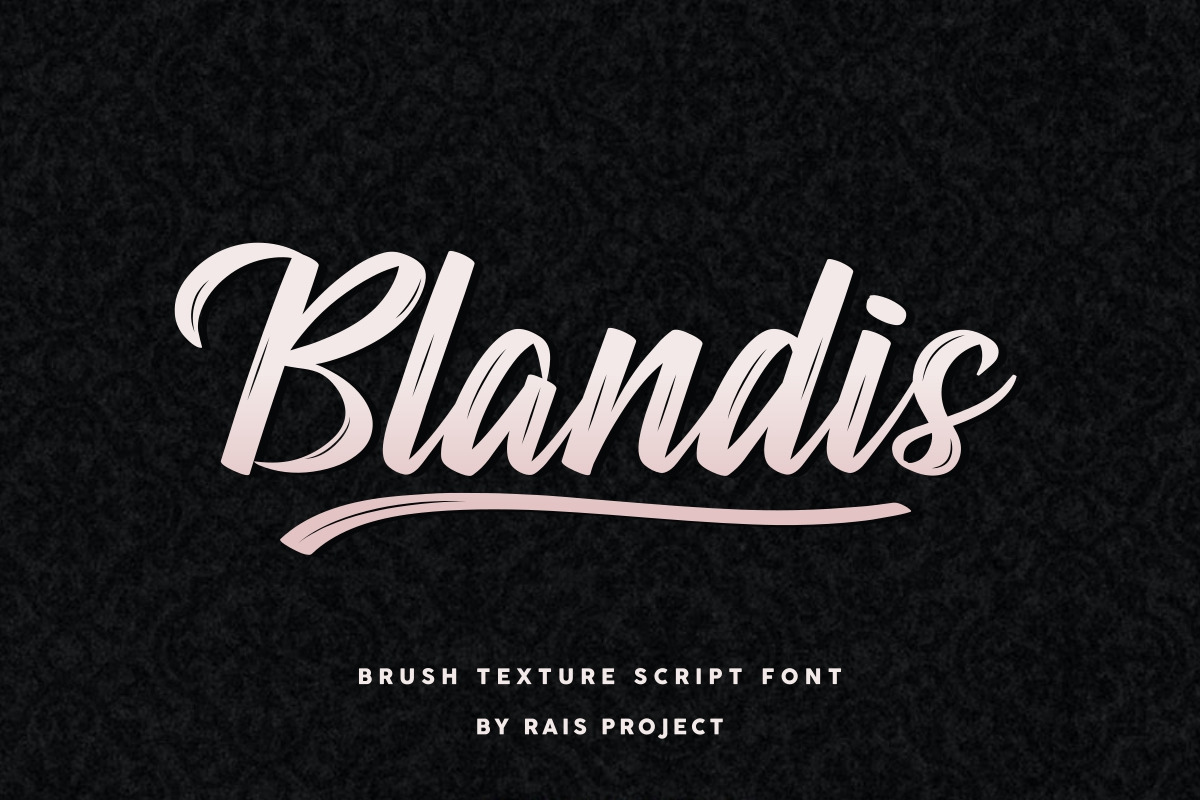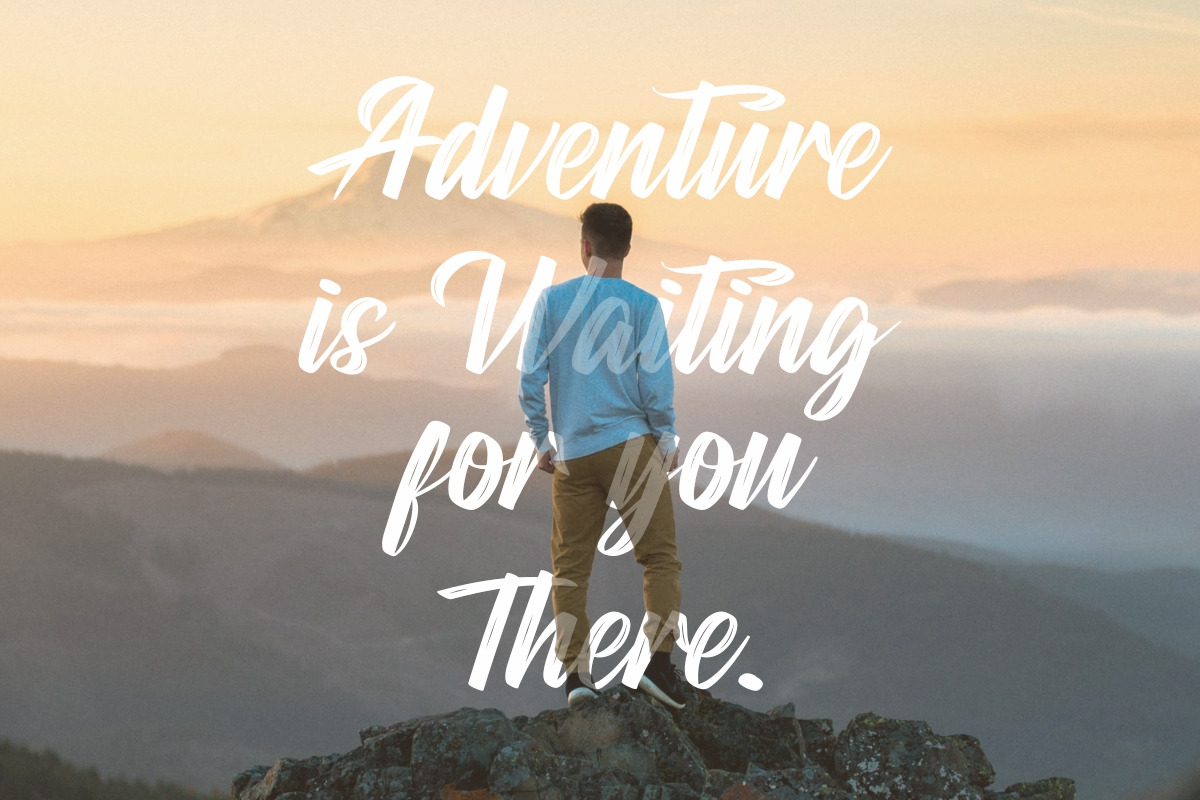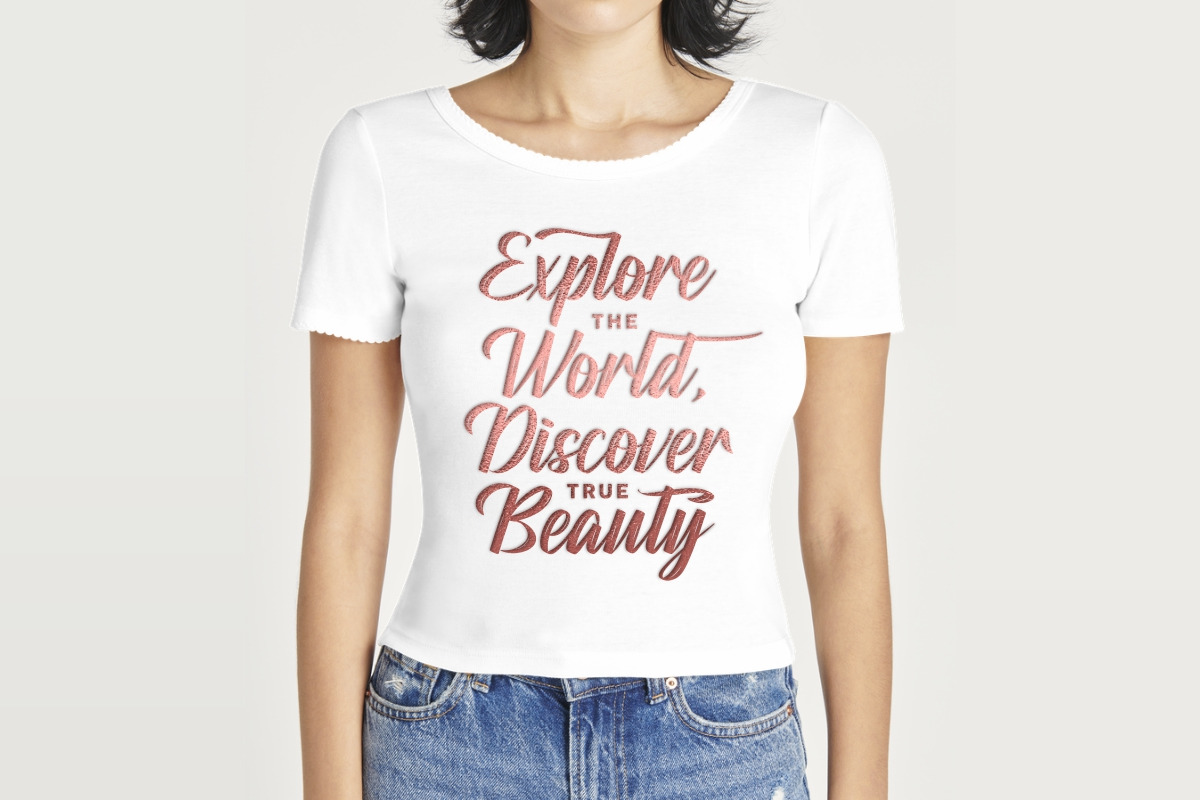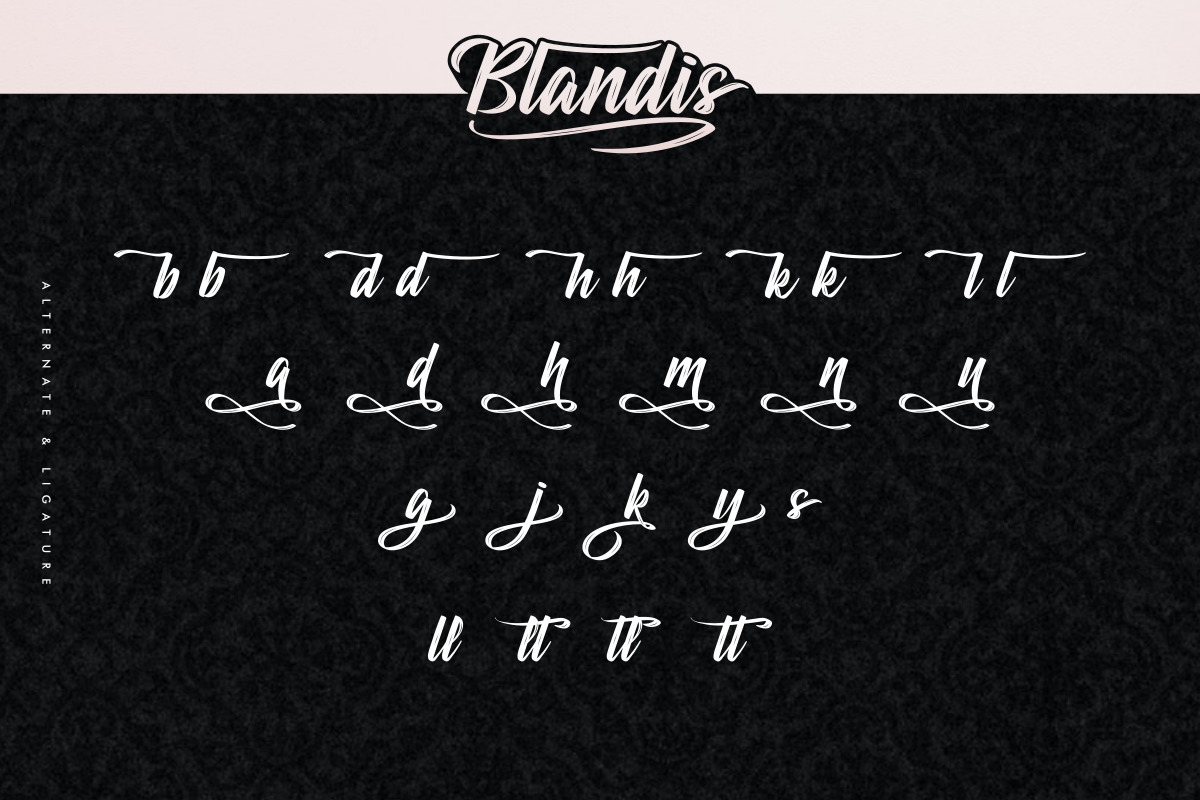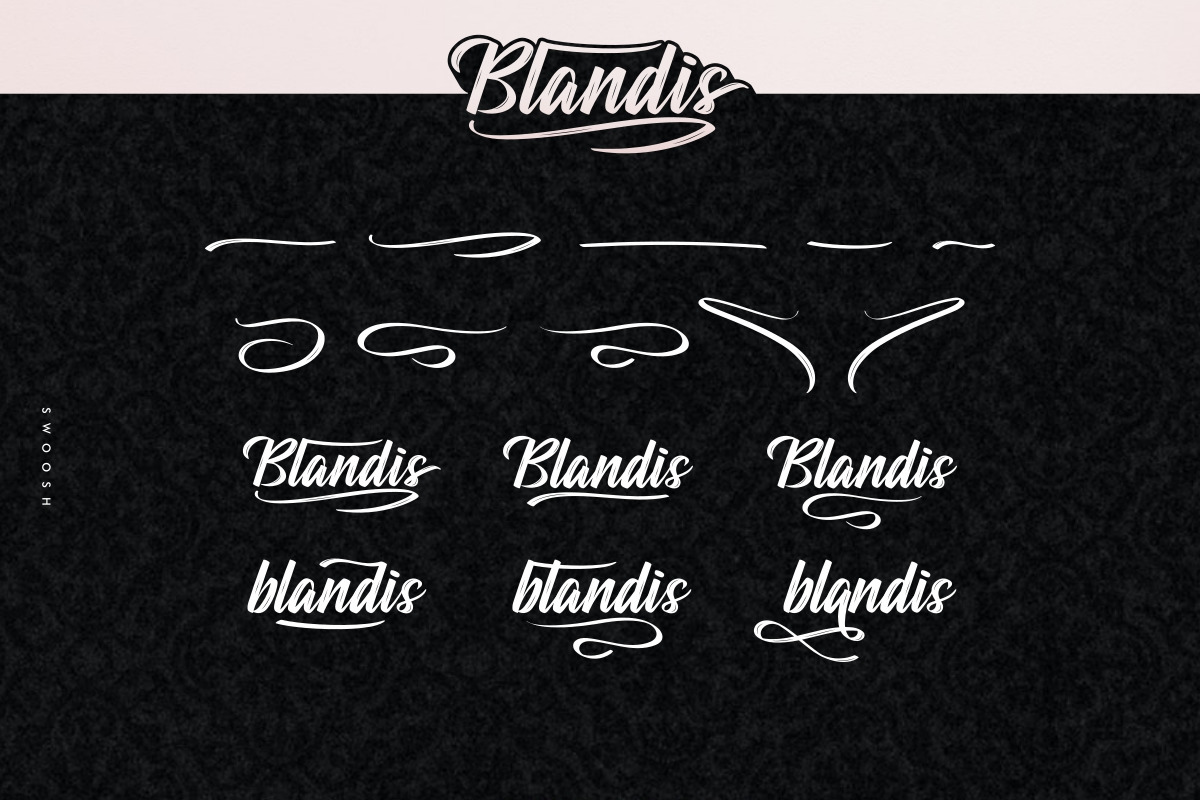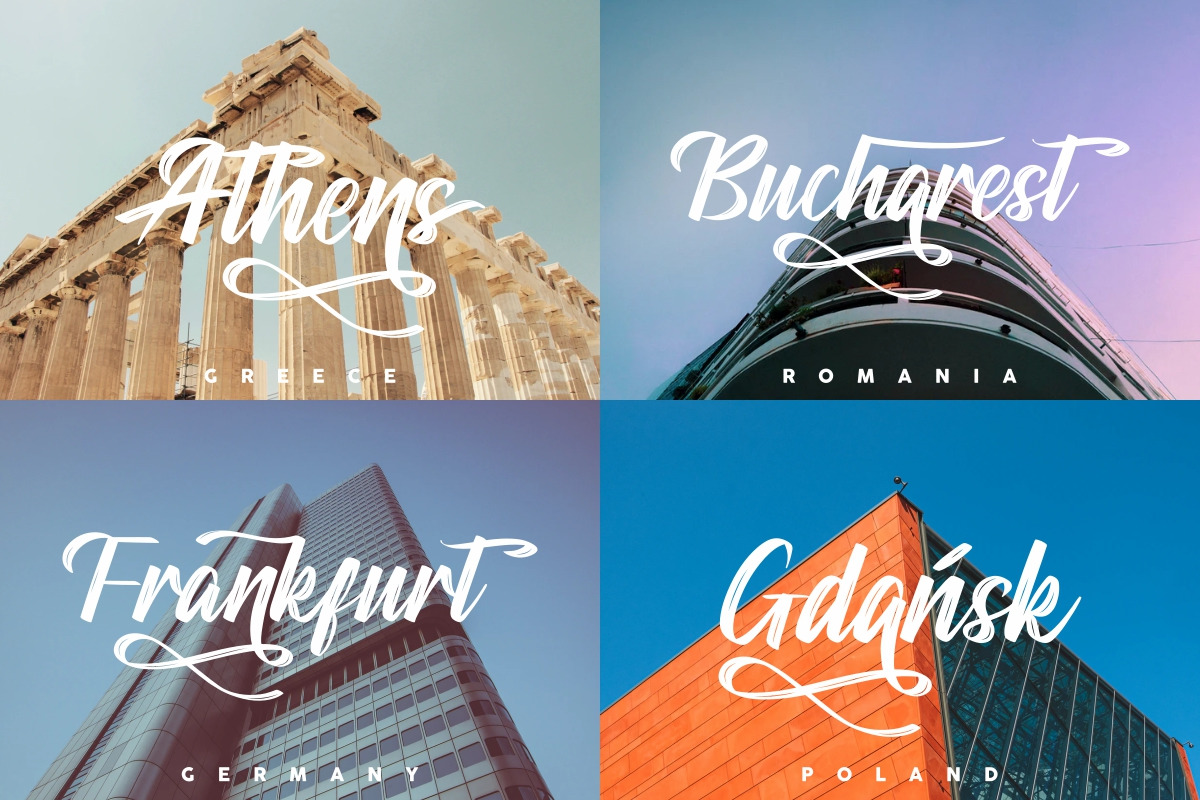
Blandis Brush Textured Script Font
Blandis Font is a textured vintage brush font with exclusive style. Great for any your special projects including : headlines, promotion, events, branding, advertising, magazine, signage, invitation, stationery, social media posts, label, or and any projects that need unique strong style. The theme/industries of this font is Vintage, Horror, Movie, Game, Magazine, Music, Video, Sports, Racing etc